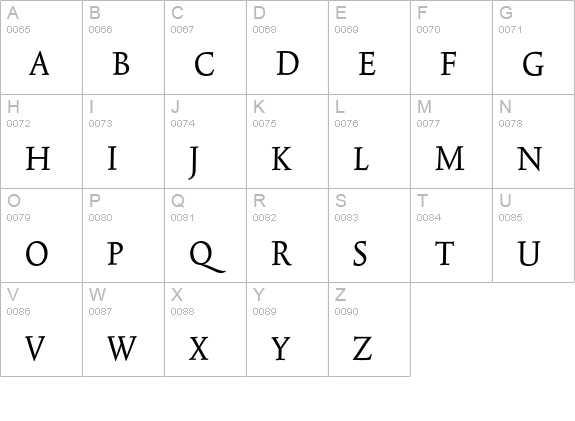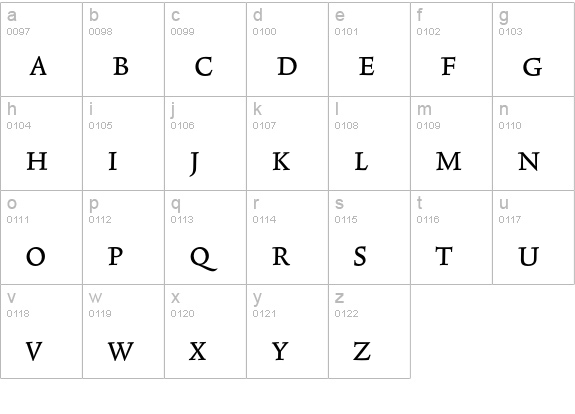
TriniteNo1-RomanCondensedExp is a stunning font that exudes elegance and sophistication. Its sleek and condensed design makes it perfect for a wide range of projects, from branding and logo designs to headlines and titles. The letters are meticulously crafted, with clean lines and balanced proportions, resulting in a typeface that is both modern and timeless. This font is not only visually appealing but also highly versatile. It can effortlessly adapt to various design styles, whether it be a minimalistic approach or a more decorative and ornate concept. Its versatility and flexibility make it an essential addition to any designer's toolkit. One of the best things about TriniteNo1-RomanCondensedExp is that it is available for free. Yes, you heard it right! This exquisite font can be freely downloaded at FontsMarket.com. This means that you can enhance your designs without having to worry about any additional costs. It is a fantastic opportunity to access a high-quality font without breaking the bank. TriniteNo1-RomanCondensedExp is not only visually stunning but also highly legible. Each letter is carefully crafted to ensure optimal readability, regardless of the size or context. This makes it an excellent choice for both print and digital designs, ensuring that your message is effectively communicated to your audience. Whether you are a professional designer or someone who appreciates beautiful typography, TriniteNo1-RomanCondensedExp is a font that you should definitely consider. Its clean and sophisticated aesthetic, coupled with its versatility and availability, make it a valuable asset in any design project. So why wait? Head over to FontsMarket.com and download TriniteNo1-RomanCondensedExp for free, and take your designs to the next level.